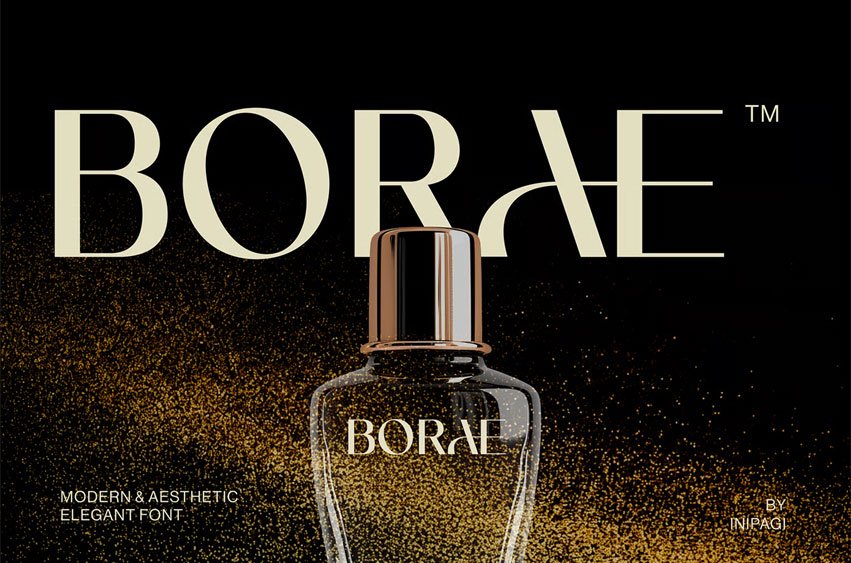
Borae Font Modern Aesthetic Elegant Font, a typeface designed to convey modern aesthetics and refined visual character. Borae features balanced proportions, clean curves, and a graceful letter structure that works well for menus, brand identities, editorial layouts, and visual systems that emphasize clarity and style. It is also suitable for fashion-related design, hospitality branding, and contemporary visual communication.
Borae Modern Aesthetic Elegant Font is inspired by calm, well-designed interior spaces and thoughtfully curated visual environments. It reflects quiet confidence, gentle rhythm, and organized composition. The letterforms are crafted with attention to spacing and harmony, helping Borae communicate elegance, simplicity, and modern design sensibility across various creative contexts.
Key Features of Borae
- Aesthetic and Elegant Style: Supports visual identities that focus on refinement and clarity.
- Modern and Balanced Forms: Smooth curves and controlled proportions for consistent typography.
- Careful Craftsmanship: Detailed shapes designed to maintain visual harmony in text and headlines.
- Clear Readability: Suitable for menus, packaging, titles, invitations, and digital interfaces.
- Restaurants and Cafés: Menu systems, visual identity, wayfinding, and branding applications.
- Hospitality and Interior Concepts: Boutique hotels, lounges, curated spaces, and branding materials.
- Fashion and Lifestyle Brands: Lookbooks, labels, editorial layouts, brand marks, and product design.
- Event Concepts: Wedding invitations, formal gathering materials, program books, and announcement design.
With Borae Modern Aesthetic Elegant Font, designers can build visual identities that feel orderly, graceful, and contemporary. The typeface supports applications in dining environments, hospitality branding, fashion contexts, and event communication. Bringing a calm and modern typographic tone to a wide range of creative projects.